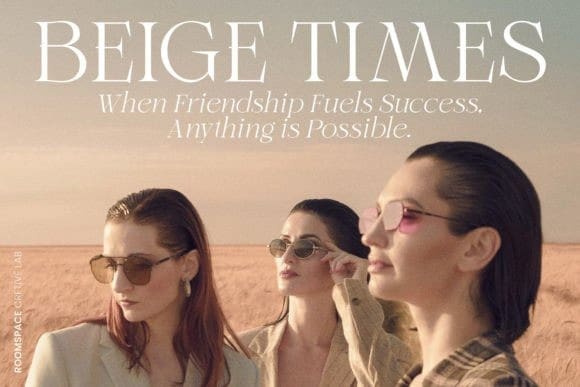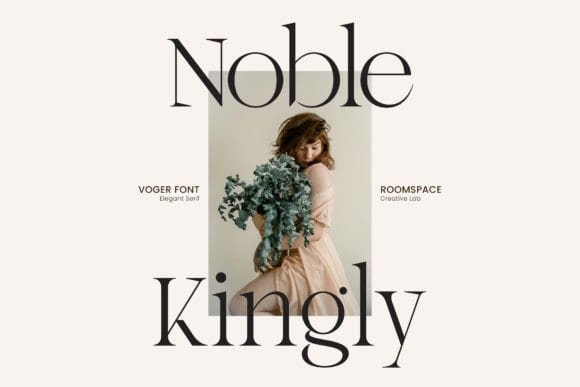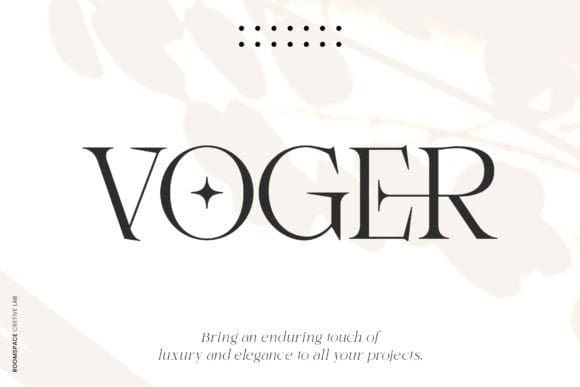
Voger Font
VOGER FONT is a work of art in the form of a modern serif font, with a design that exudes a clean, timeless elegance. With its upright and meaningful serif lines, “VogerFont ” combines classic elements with a subtly refreshing modern aesthetic.
Its enduring beauty meets a gentle touch of luxury, making “Voger” an ideal choice for various exclusive design projects. The simplicity and clarity in its design ensure that your message always appears clearly, regardless of size or medium. Moreover, “Voger” comes with a variety of unique alternate letters and ligatures, providing richness and creative flexibility in all your design creations.